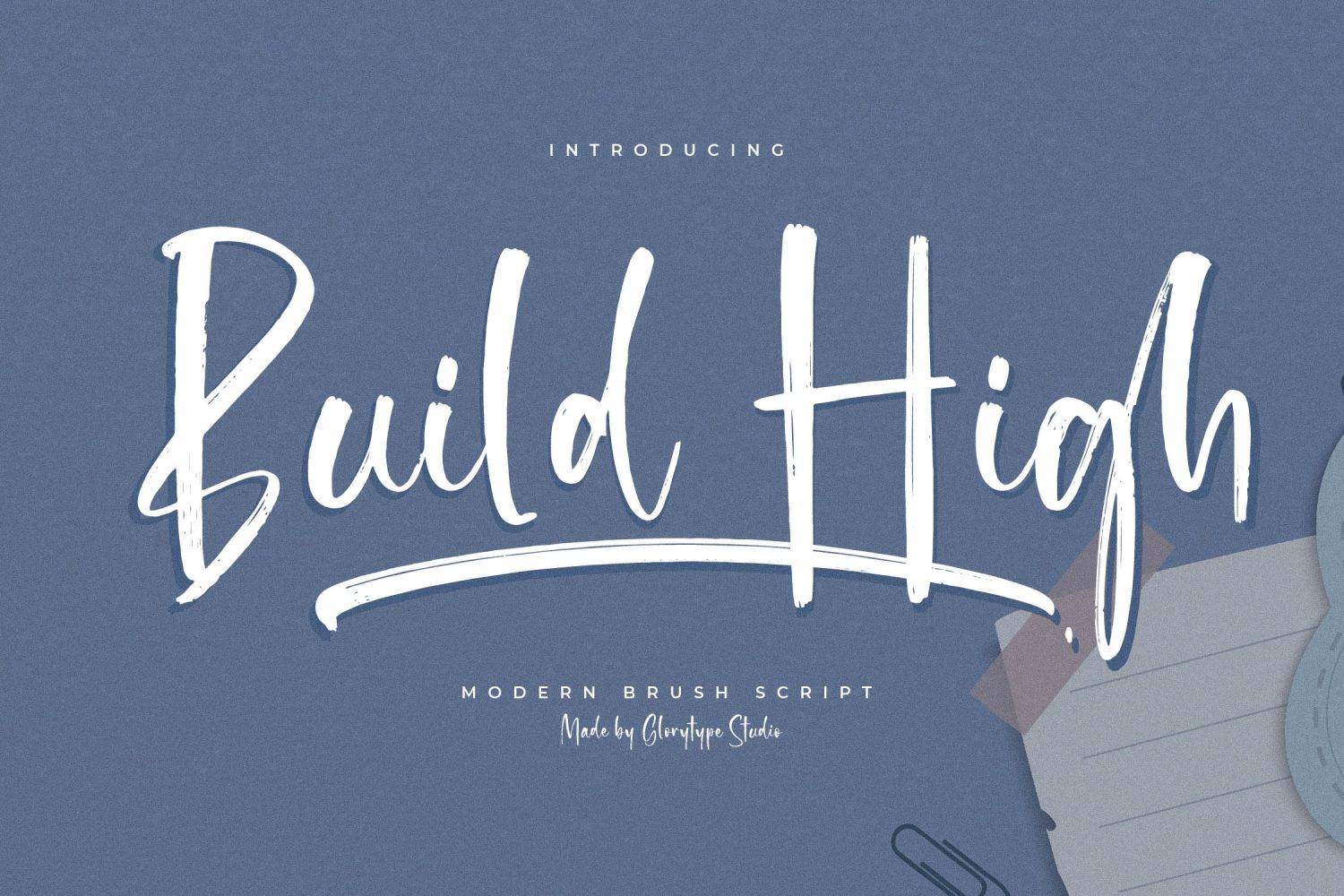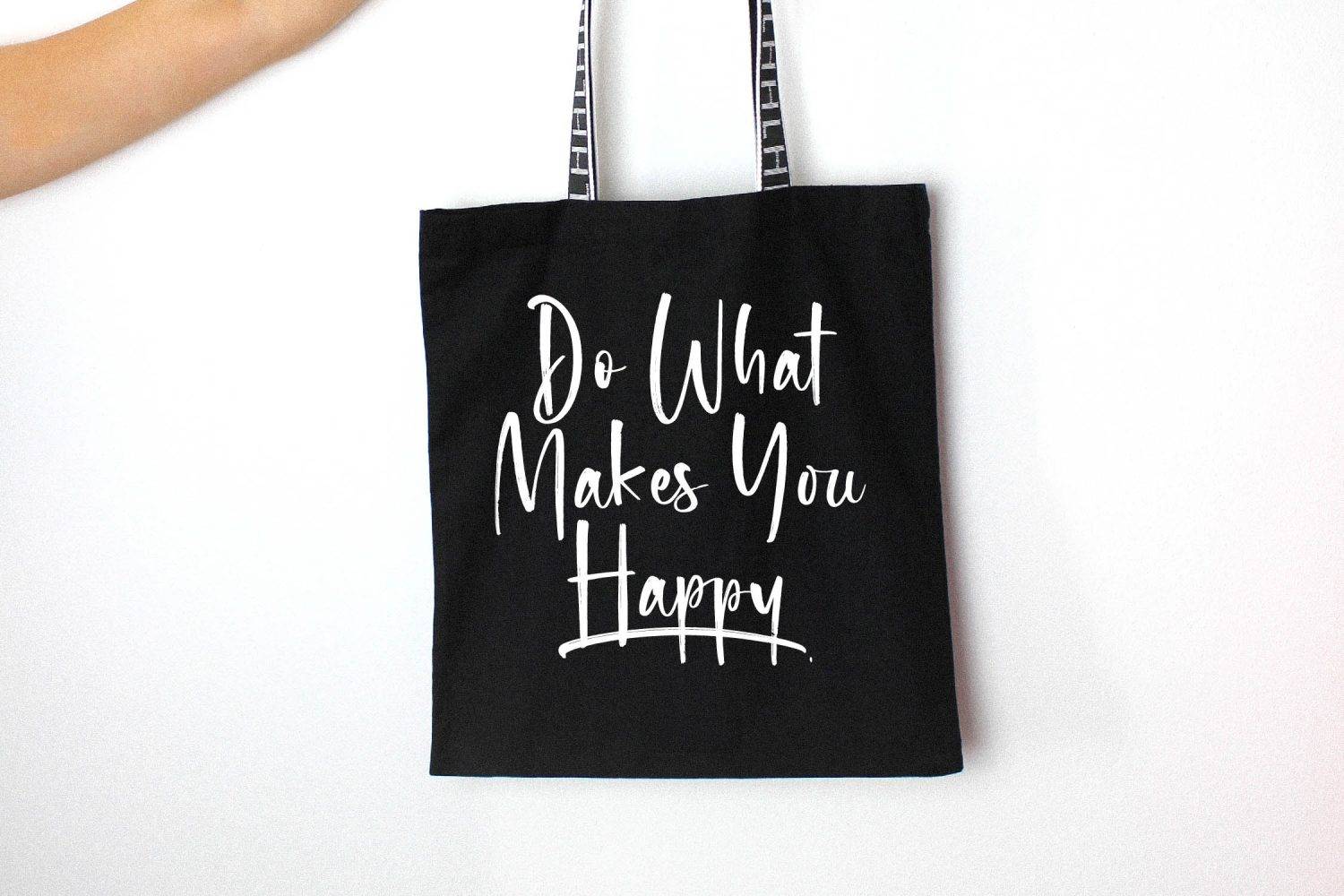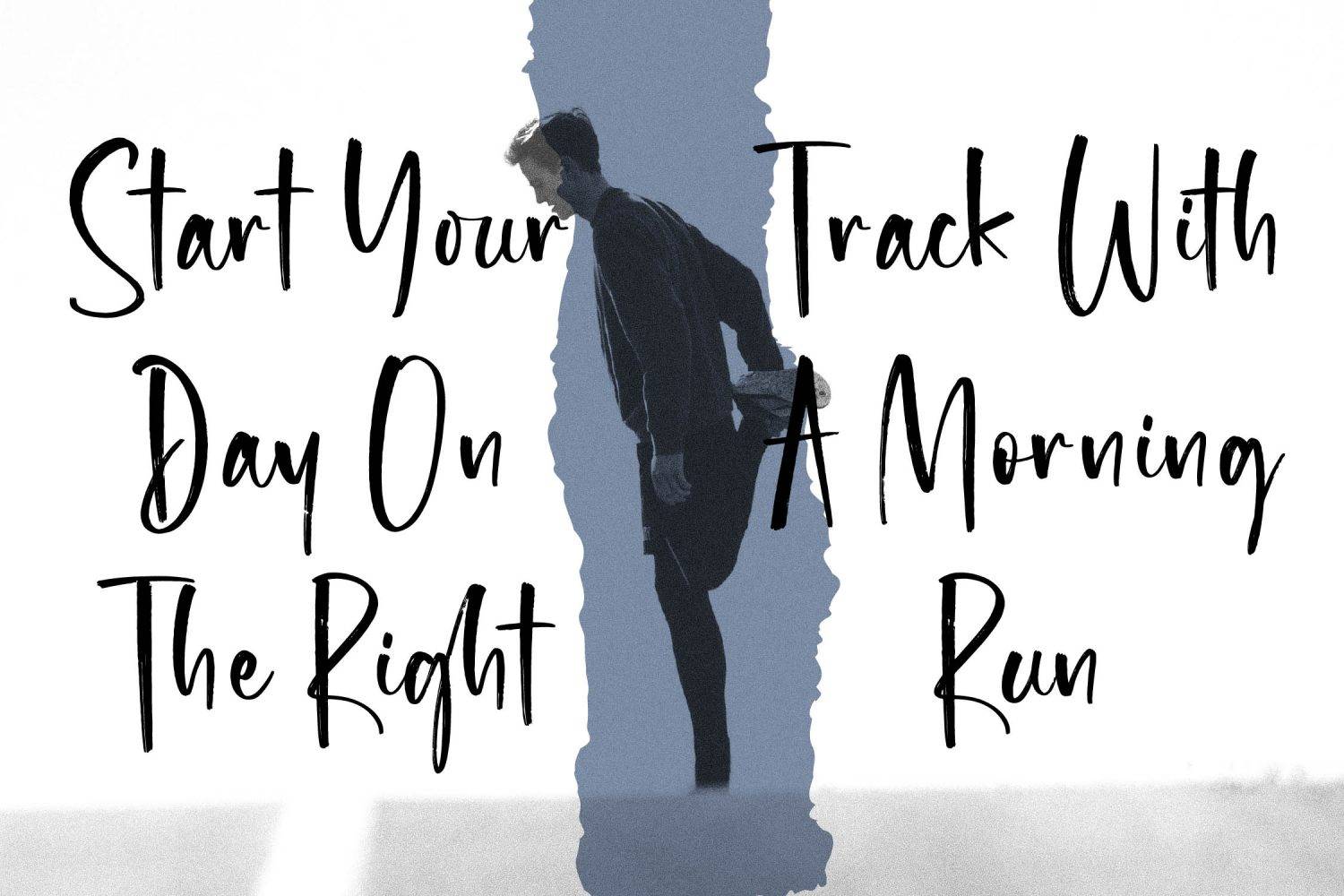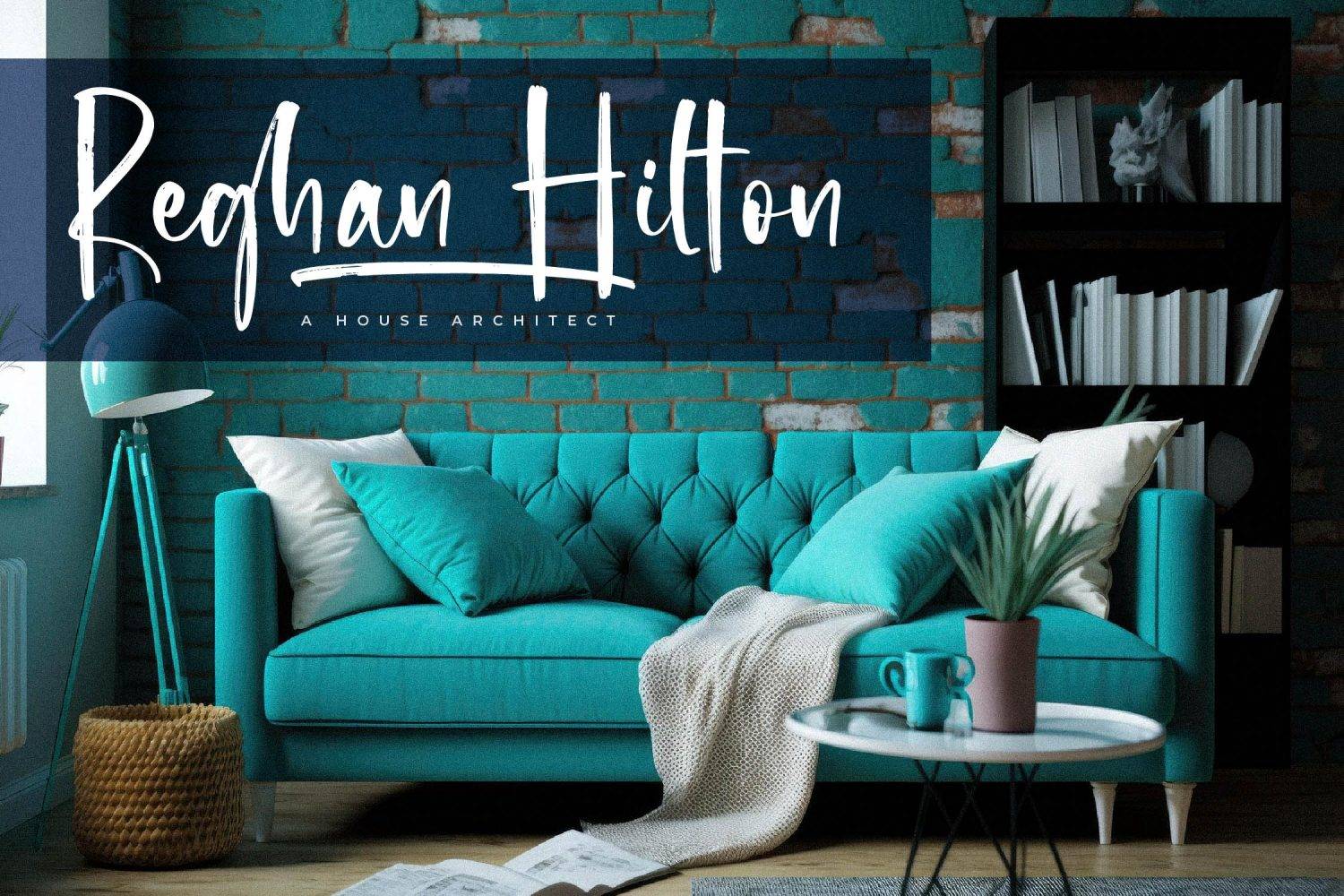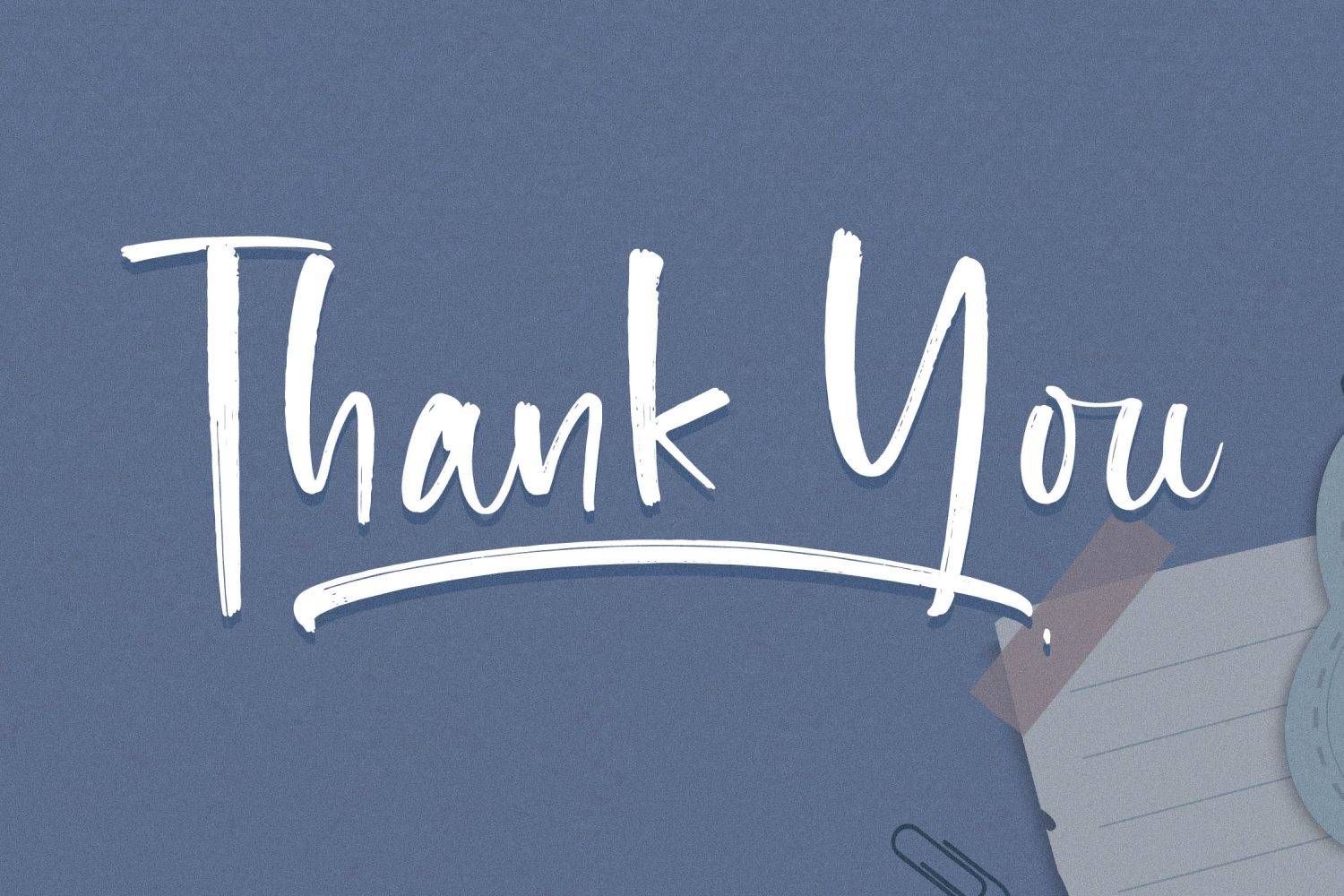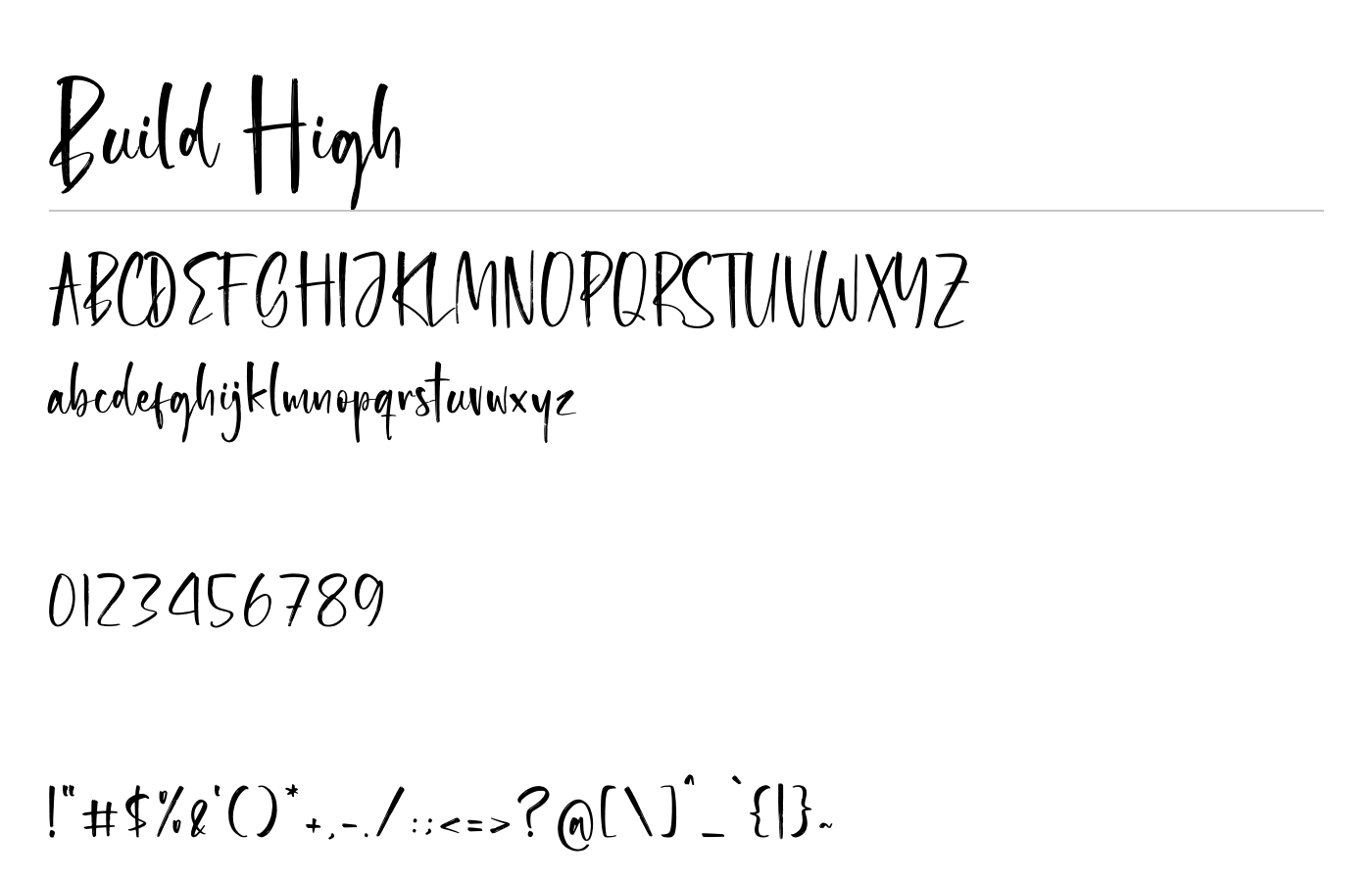
Build High is a tall, handwritten script font that combines an energetic and playful style with a casual, natural feel. Its slender letterforms and uneven strokes create a dynamic, informal look perfect for creative branding, invitations, and expressive headlines. This font works well in designs that want to convey a friendly and approachable personality while retaining a sense of individuality and charm.
Build High Font
About Build High Font
| Font family | Build High Font |